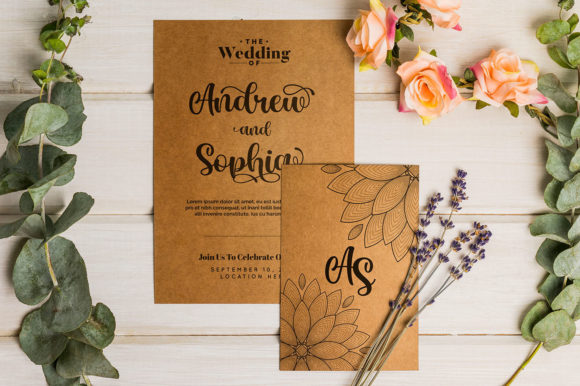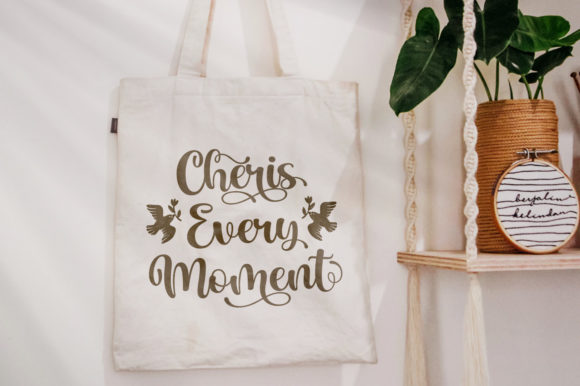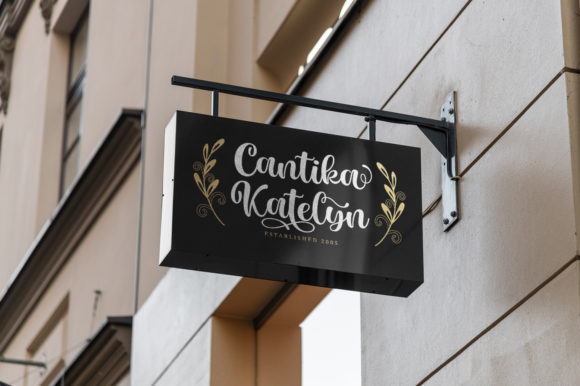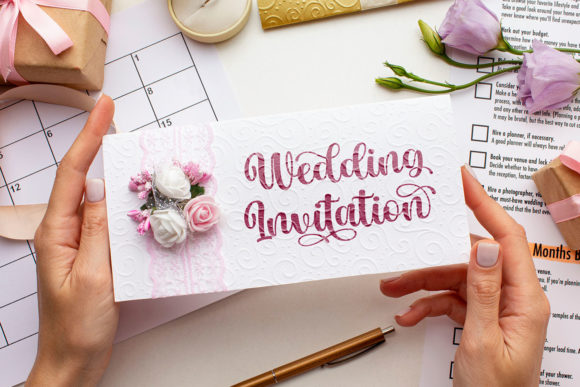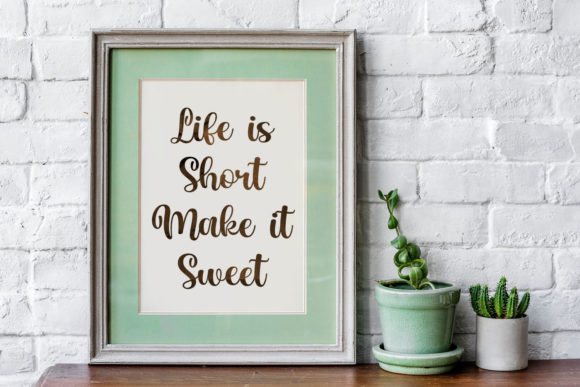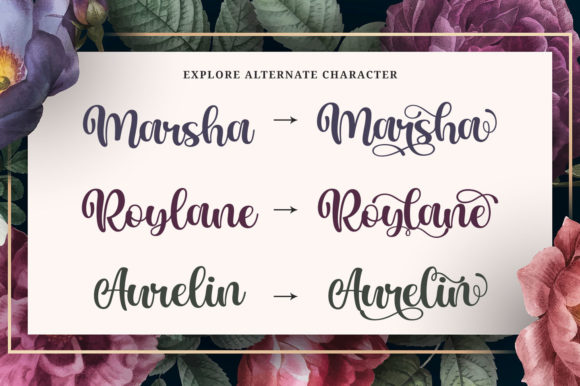
Introduction to Marlina Garden Font
Marlina Garden is a romantic and sweet calligraphy typeface with characters that dance along the baseline.
Key Features of Marlina Garden Font